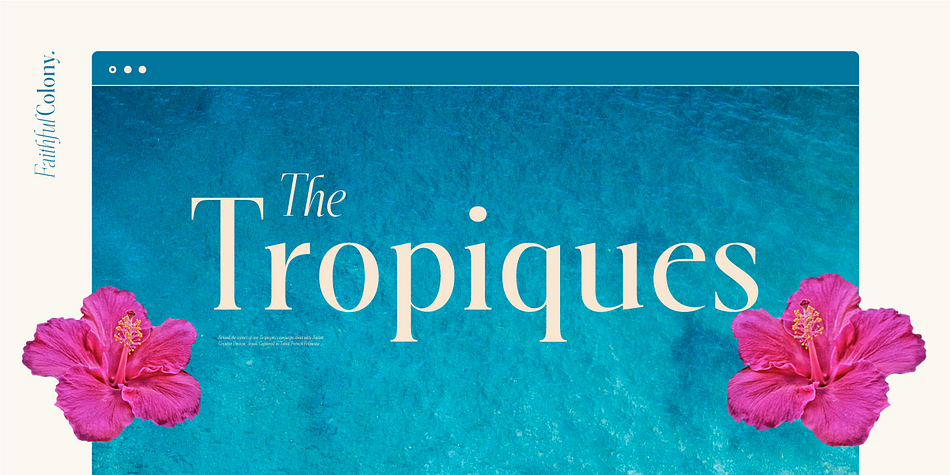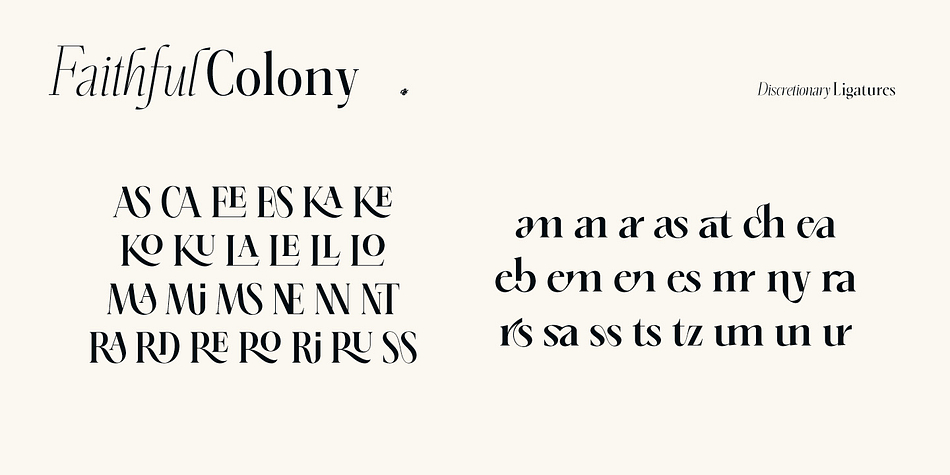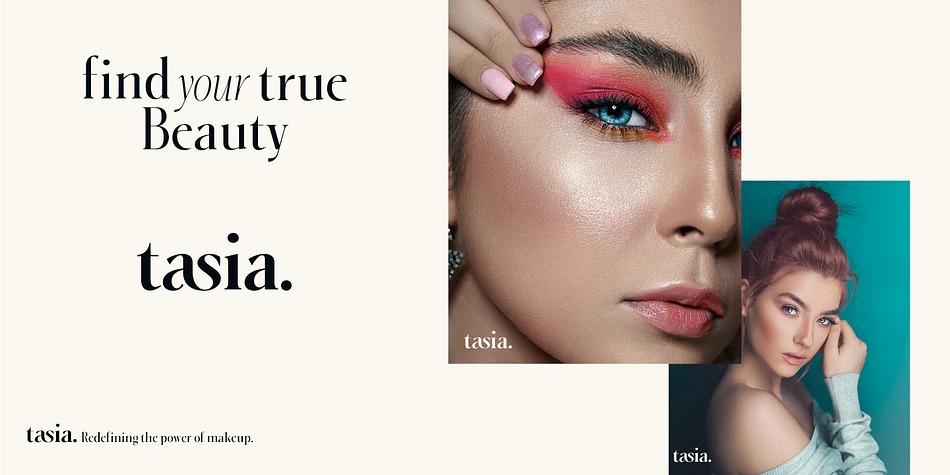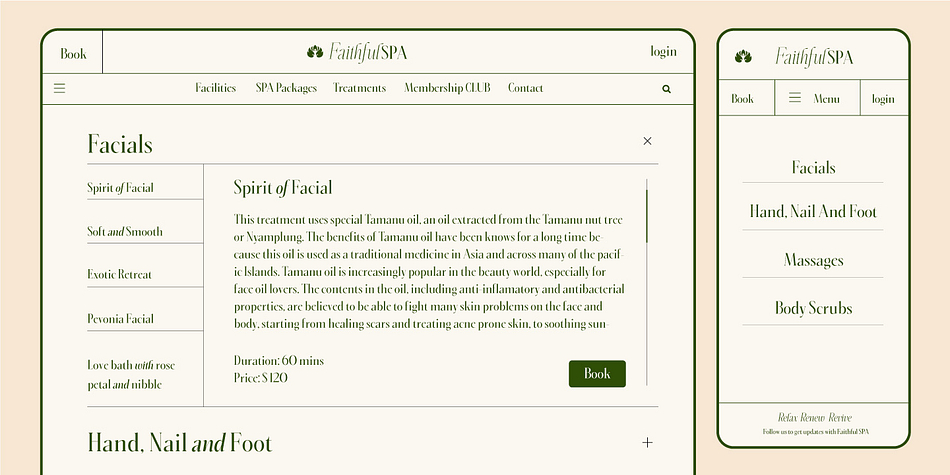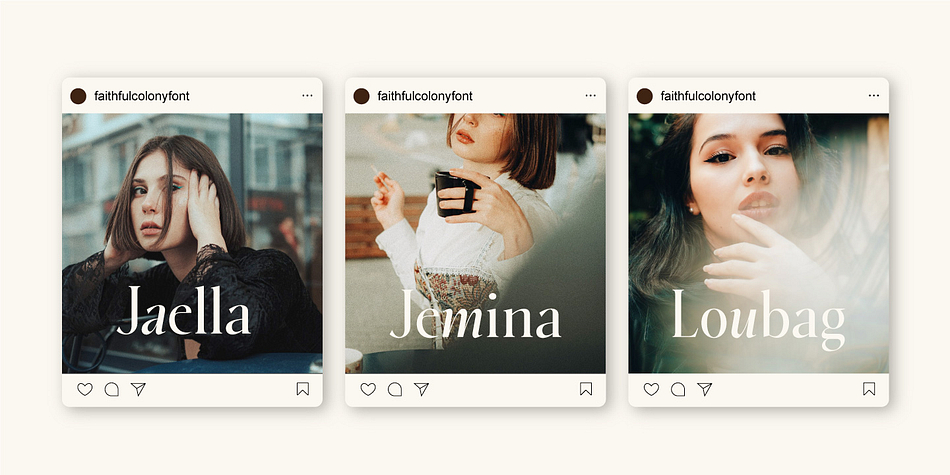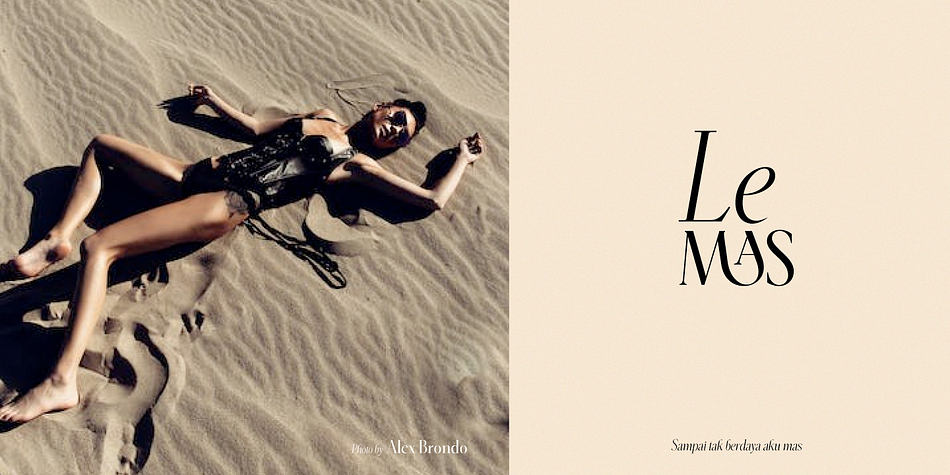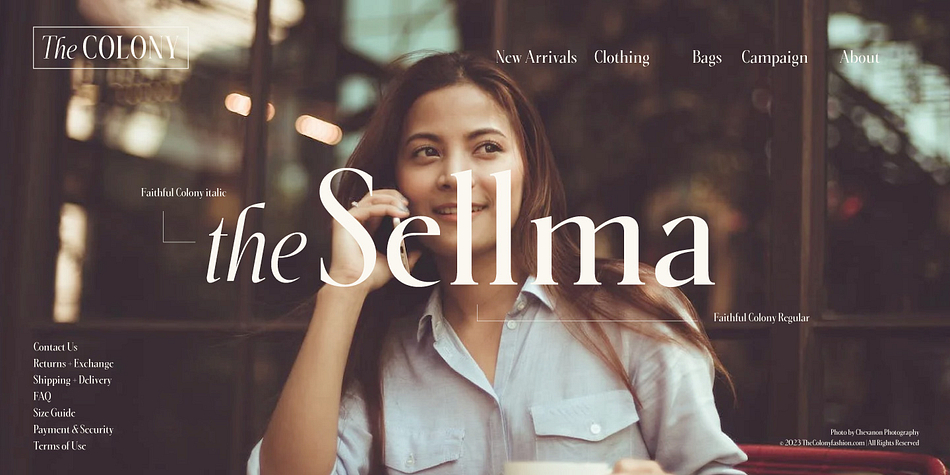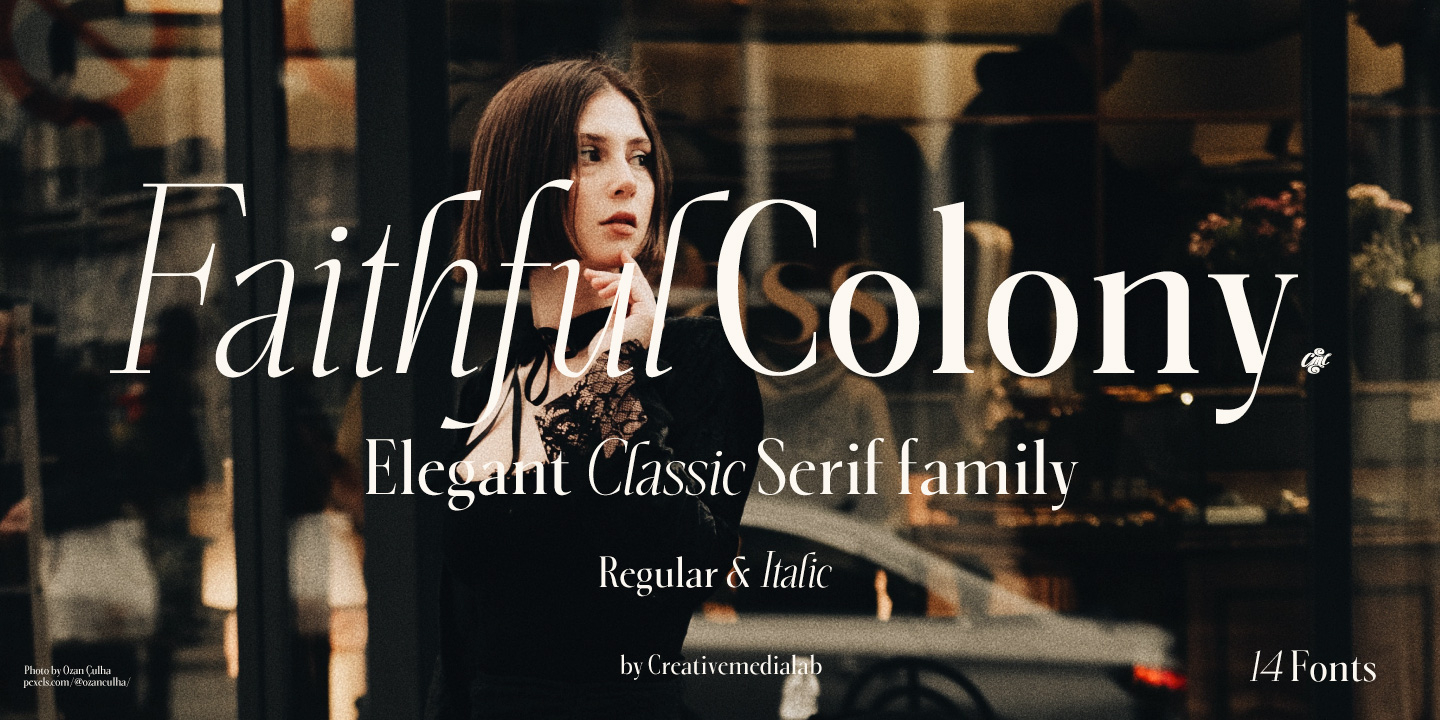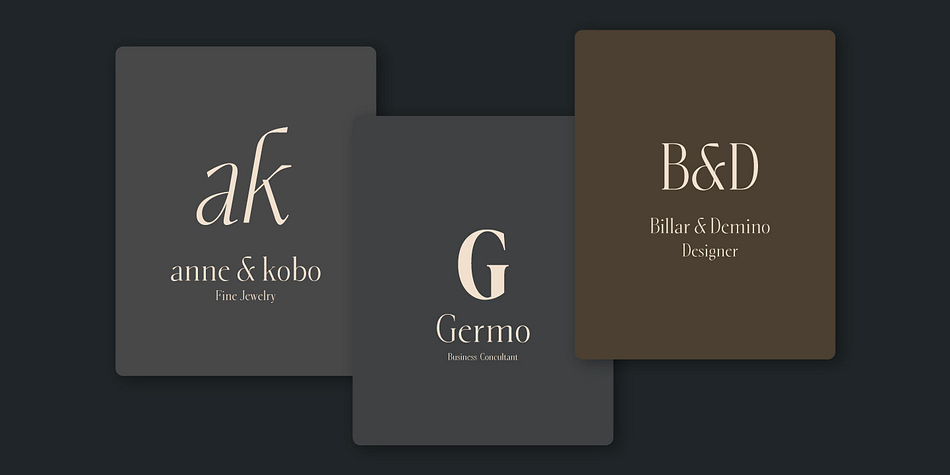
Faithful Colony
Faithful Colony is a display serif and serif font family. This typeface has fourteen styles and was published by Creative Media Lab.
Faithful Colony is a modern, elegant, classic typeface with a timeless look. It comes with seven weights ranging from thin to black, matching italics, and a variable format. Faithful Colony is perfect for fashion-related concepts, Luxury and Elegant design, Classy or high-end branding, logo, and many more. Try to combine the regular and italic styles for a modern and elegant look.